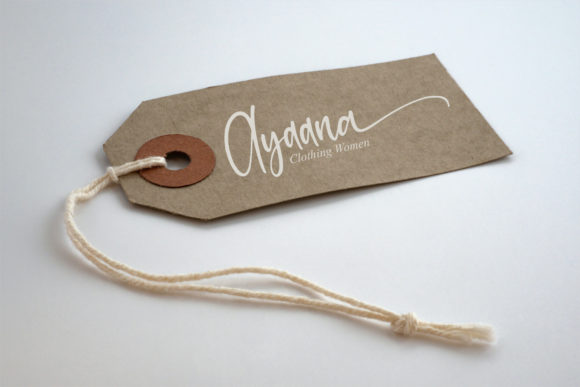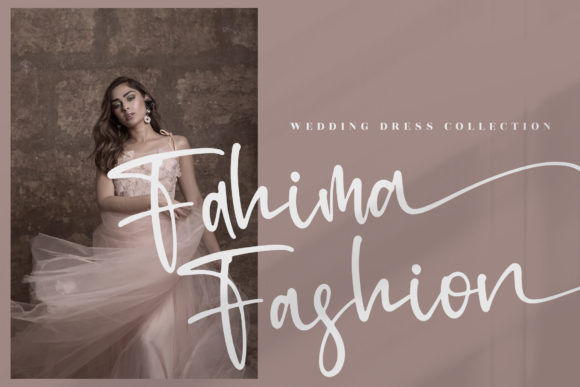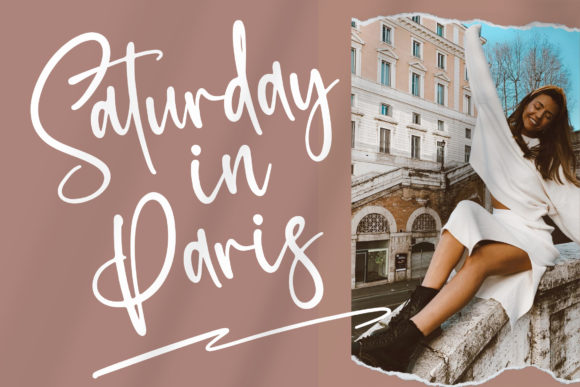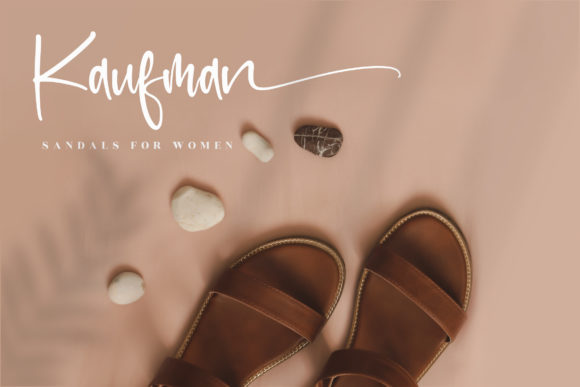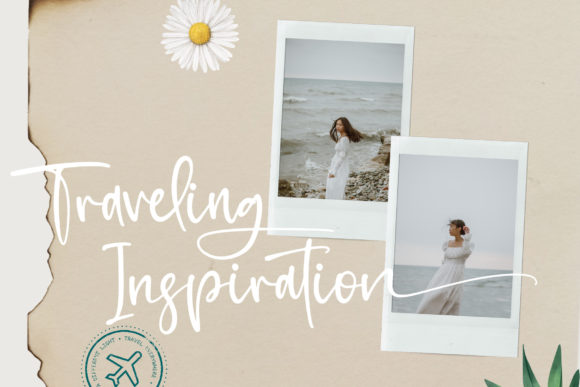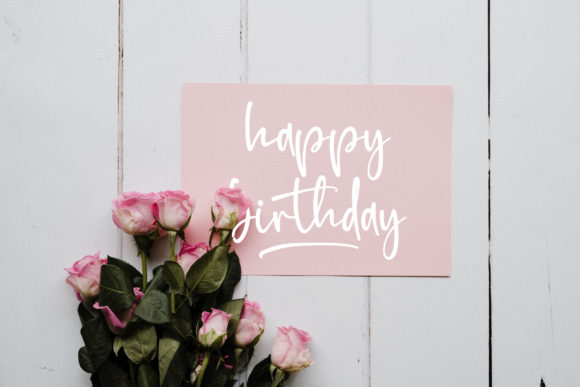
Introducing Balistica Font: Elevate Your Designs with Elegance
Are you a designer or crafter looking for a font that adds a touch of sophistication and elegance to your creations? Look no further than Balistica Font. This beautiful script font is perfect for a variety of design projects, from wedding invitations and greeting cards to logos and business cards.
What Makes Balistica Font Special?
Balistica Font is a flowing and delicate script font that is sure to impress. Its elegant strokes and curves make it perfect for designs that require a customized touch. Whether you’re creating wedding invitations, thank you cards, or quotes, Balistica Font is the perfect choice. Its unique and beautiful design will add a touch of sophistication to any project.
Balistica Font is versatile and can be used for a wide range of design projects. Here are some ideas to get you started:
• Wedding Invitations: Make your wedding invitations truly special with Balistica Font. Its elegant design will set the tone for your big day.
• Thank You Cards: Express your gratitude in style with Balistica Font. Its delicate strokes and curves make it perfect for thank you cards and other greeting cards.
• Quotes: Add a touch of elegance to your quotes with Balistica Font. Its beautiful design will make your quotes stand out.
• Greeting Cards: Create beautiful greeting cards for any occasion with Balistica Font.
• Logos: Use Balistica Font to create a unique and elegant logo for your business.
• Business Cards: Make a great impression with Balistica Font on your business cards.
Balistica Font is PUA encoded, which means you can access all of the glyphs and swashes with ease. This makes it easy to customize your designs and add a personal touch. With PUA encoding, you can:
• Access a wide range of glyphs and swashes: Balistica Font comes with a range of glyphs and swashes that you can use to customize your designs.
• Easily customize your designs: With PUA encoding, you can easily access and use the glyphs and swashes you need to create unique and beautiful designs.
Why Choose Balistica Font?
There are many script fonts available, but Balistica Font stands out from the rest. Here are just a few reasons why:
• Unique and elegant design: Balistica Font has a unique and elegant design that will add a touch of sophistication to any project.
• Versatile: Balistica Font can be used for a wide range of design projects, from wedding invitations to logos.
• PUA encoded: Balistica Font is PUA encoded, making it easy to access and use the glyphs and swashes you need.